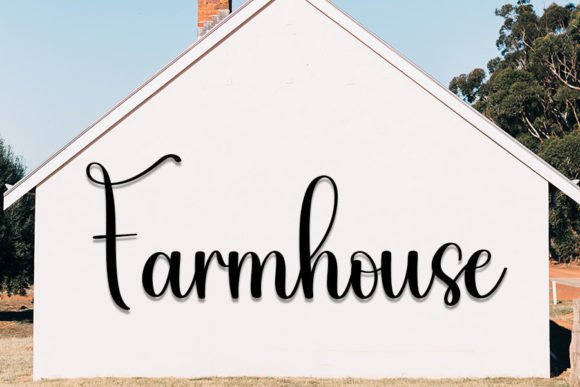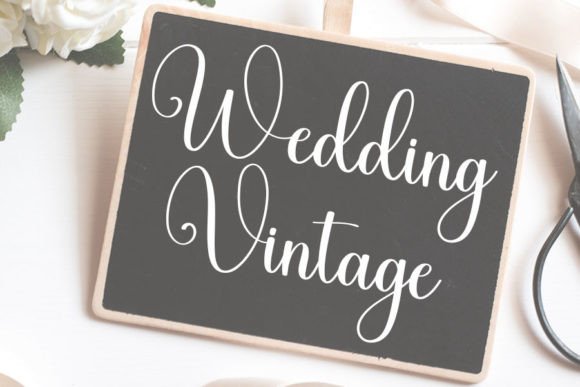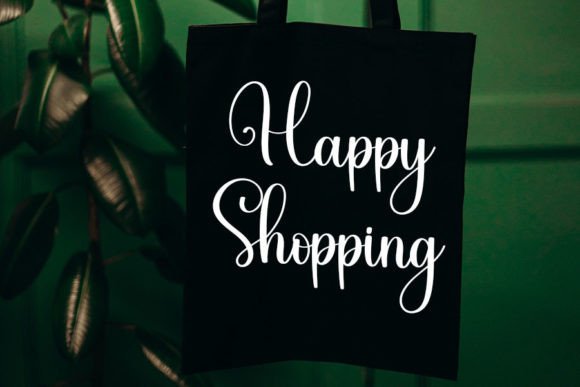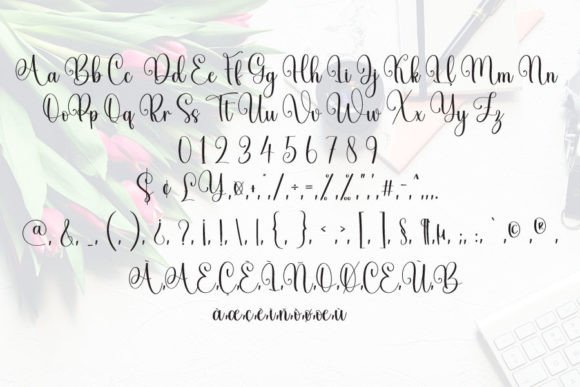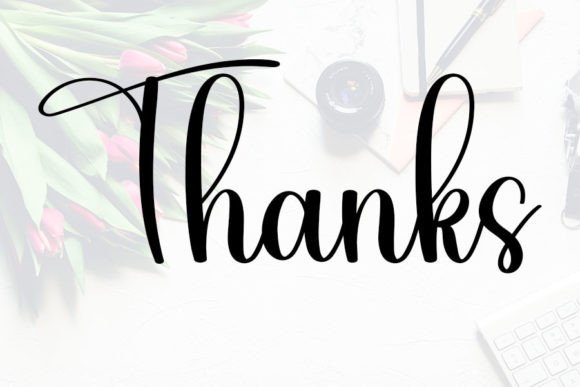
Introducing Handy Font: The Simple Handwritten Font for Your Creative Projects
Are you a designer, crafter, or DIY enthusiast looking for a font that can add a personal touch to your projects? Look no further than Handy Font, a simple handwritten font that’s perfect for a wide range of applications. From greeting cards to headlines, Handy Font is a versatile and easy-to-use font that can help you create unique and eye-catching designs.
The Characteristics of Handy Font
Handy Font is a handwritten font that’s designed to be simple, yet effective. Its clean and natural lines make it perfect for projects that require a personal touch, without being too ornate or over-the-top. The font has a friendly and approachable feel to it, making it ideal for designs that need to connect with the audience on a personal level.
What Makes Handy Font So Versatile?
One of the best things about Handy Font is its versatility. It’s a font that can be used in a wide range of projects, from:
- Greeting cards and invitations: Add a personal touch to your cards and invitations with Handy Font’s simple and elegant script.
- Headlines and titles: Use Handy Font to create eye-catching headlines and titles that will grab the attention of your audience.
- Signs and posters: Handy Font is perfect for creating signs and posters that need to be easy to read and understand.
- Digital and print media: Use Handy Font in your digital and print media projects, such as brochures, flyers, and social media graphics.
The Benefits of Using Handy Font
So why should you choose Handy Font for your next project? Here are just a few benefits of using this simple handwritten font:
- Easy to read: Handy Font is designed to be easy to read, even at small sizes.
- Highly versatile: Use Handy Font in a wide range of projects, from digital media to print materials.
- Simple and natural: Handy Font has a clean and natural feel to it, making it perfect for projects that require a personal touch.